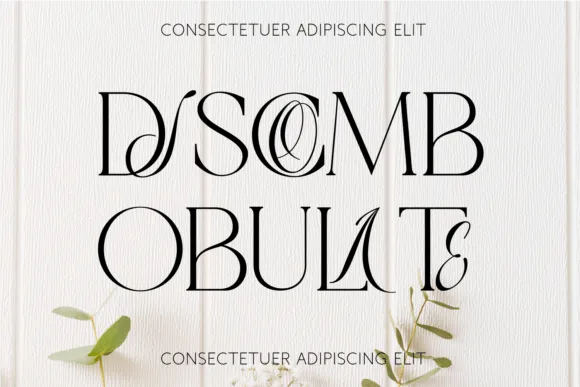
Recorded Font is a dazzling and rich blend of exemplary calligraphy and present day serif text styles. All lowercase letters have a calligraphy style and might be embedded anyplace in the word to make a novel logo, name, or show title. Simply type them in lowercase.
This is a dynamic, rich, and sumptuous impression show text style motivated by design magazines and present day typography.
Recorded Font is PUA encoded which implies you can get to the astonishing glyphs in general and ligatures effortlessly!